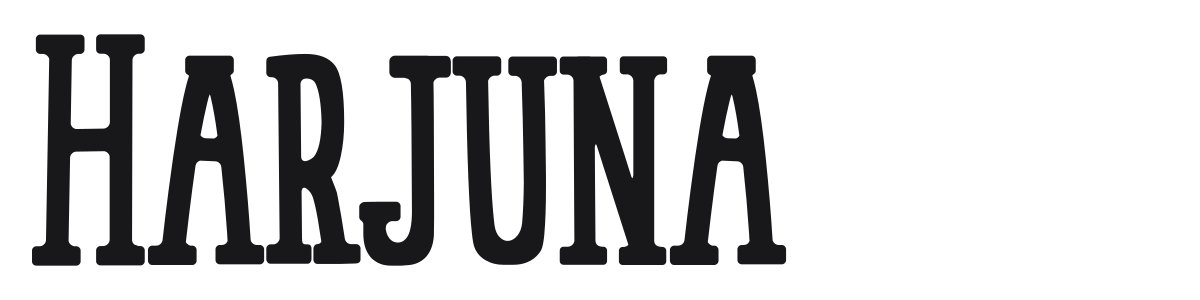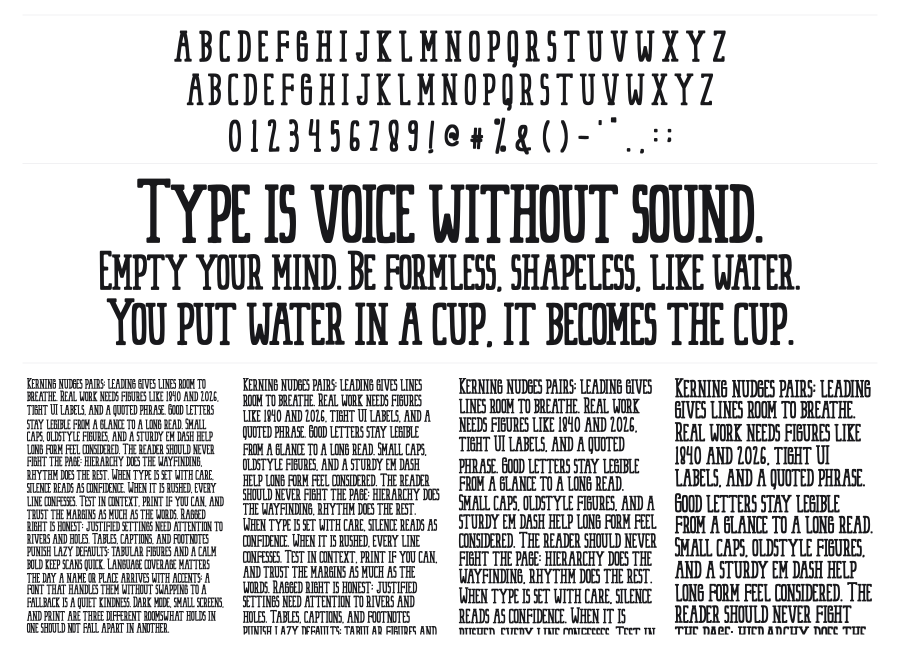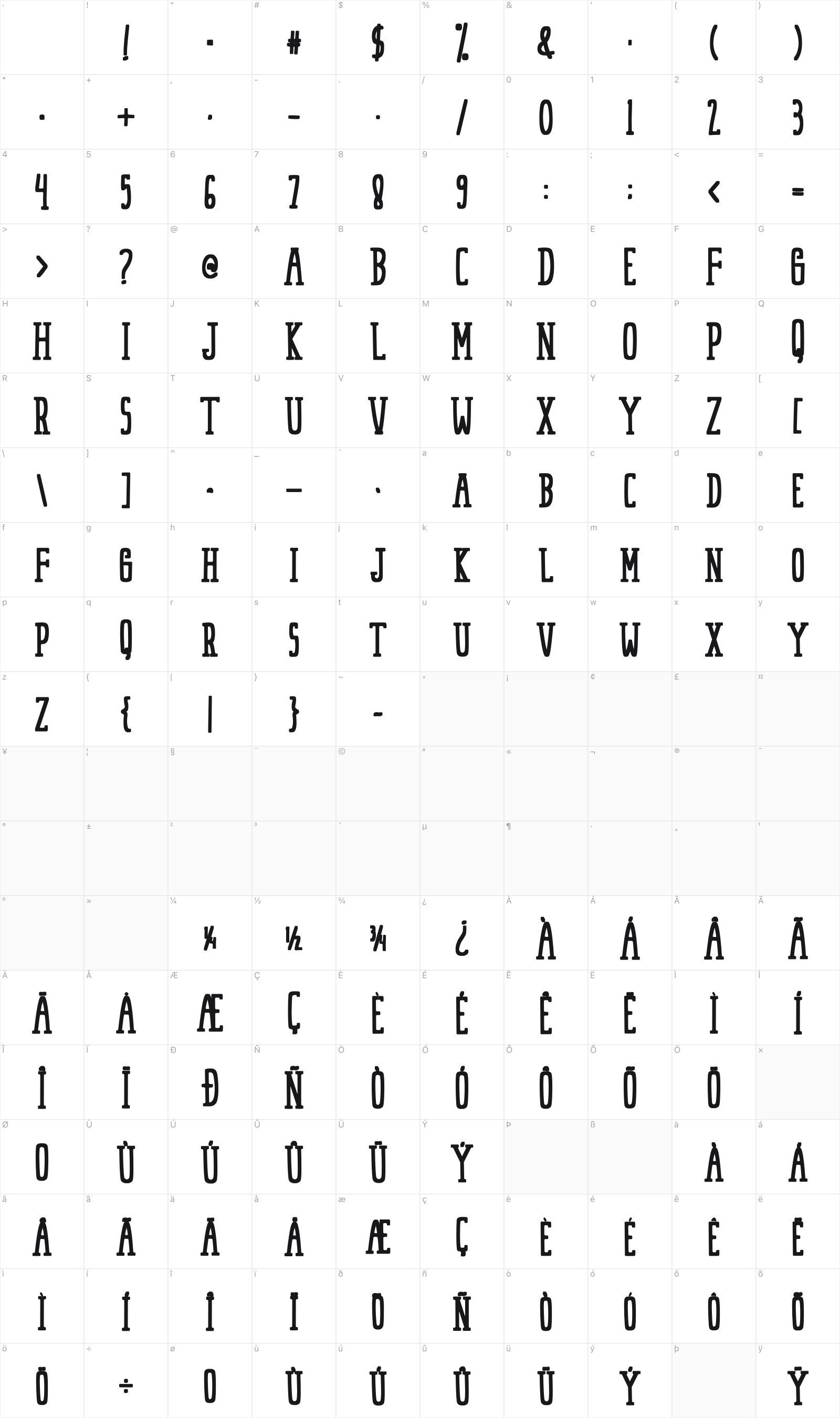
Harjuna
Harjuna is a heavy condensed slab serif with deep Victorian and wood-type roots, built for maximum typographic impact. Its thick bracketed serifs and near-monoweight strokes pack tightly into a dense, readable wall of text at large sizes. The design evokes circus bills, whiskey labels, and old-world poster lettering without feeling like a costume.